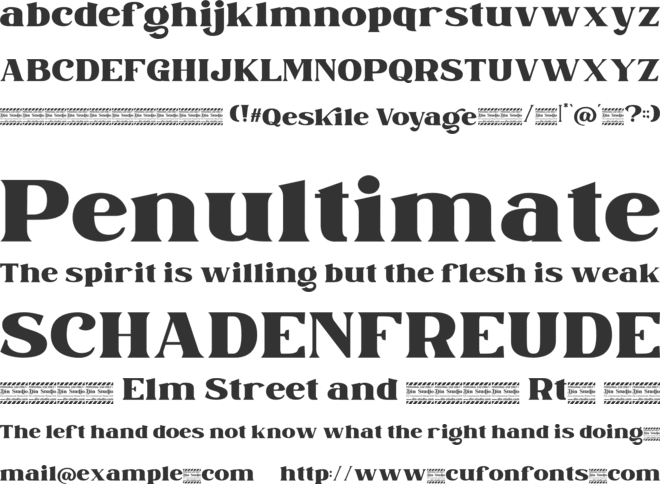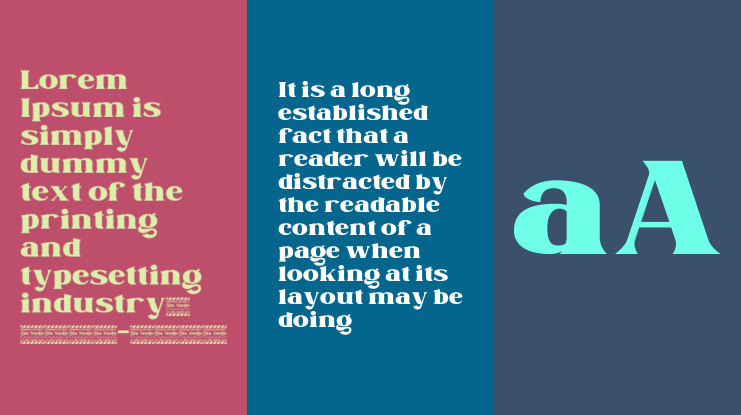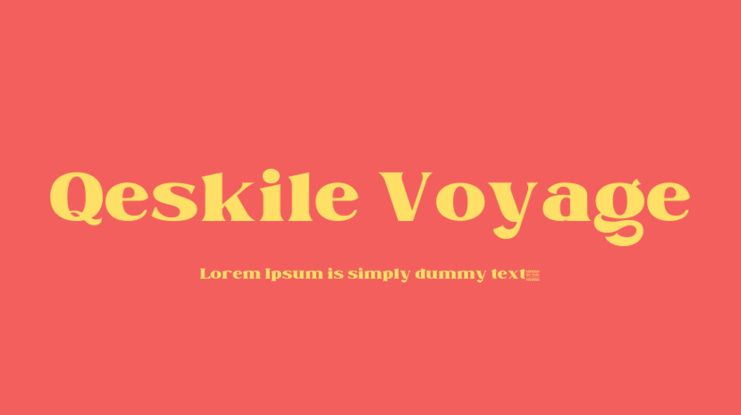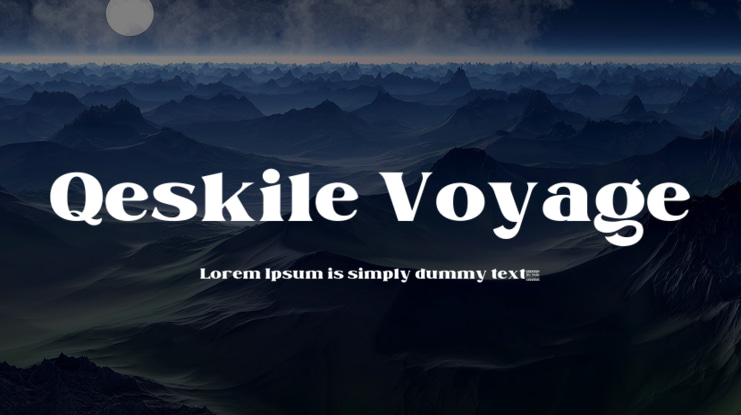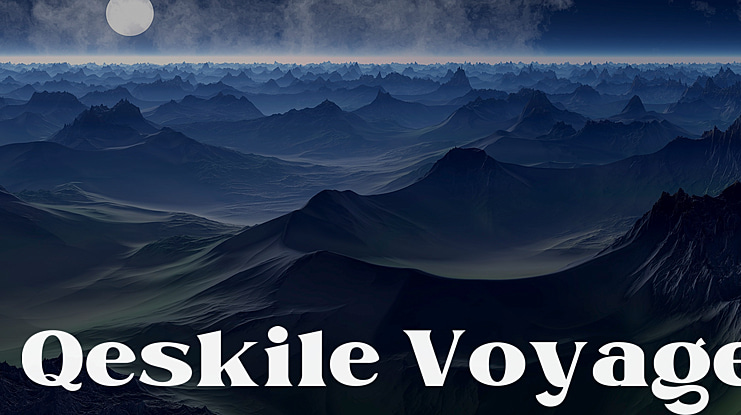
Qeskile Voyage Serif Font Family. Features with 8 fonts. This family also featured with many ligatures and alternates. The unique typeface will make your design more powerful. the font suitable for any project like web, signage, corporate as well as for editorial design and many others.